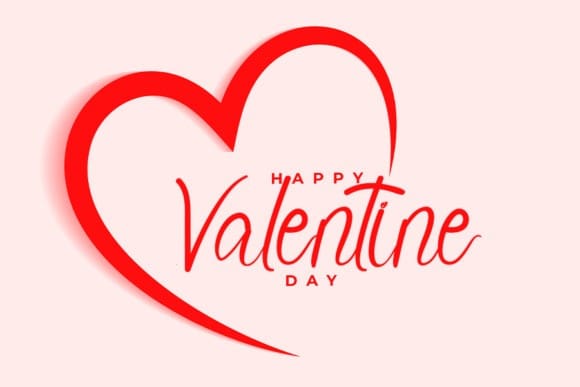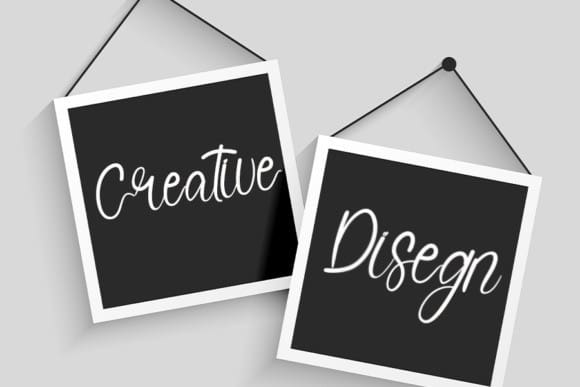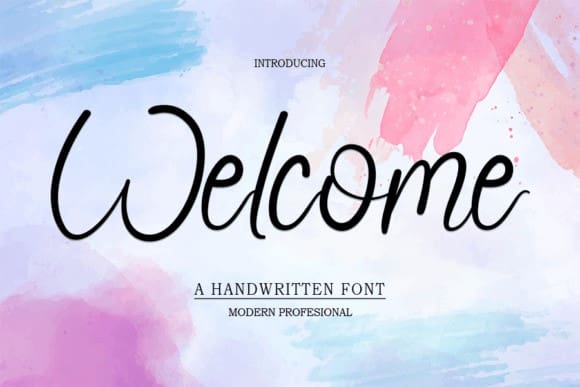
Welcome Script Font
Welcome Script Font, a graceful and versatile script and handwritten typeface that radiates warmth and hospitality. With its elegant flourishes, flowing strokes, and authentic handwritten feel, this font is perfect for creating personalized invitations, heartfelt greetings, and welcoming signage. Let Welcome Font extend a stylish and inviting touch to your design projects.